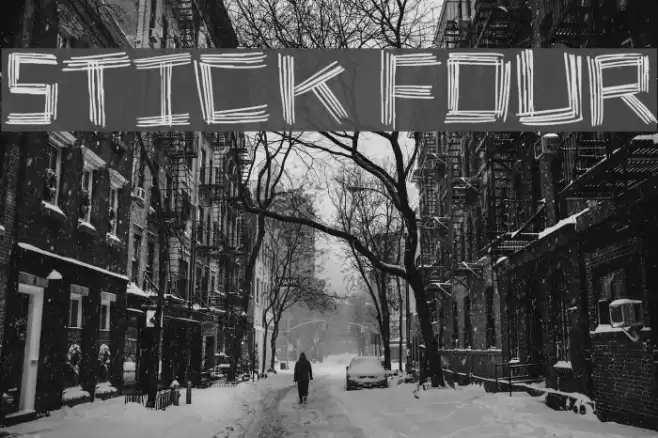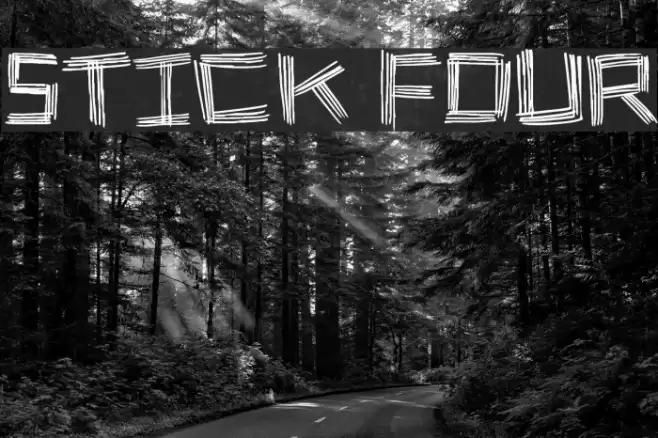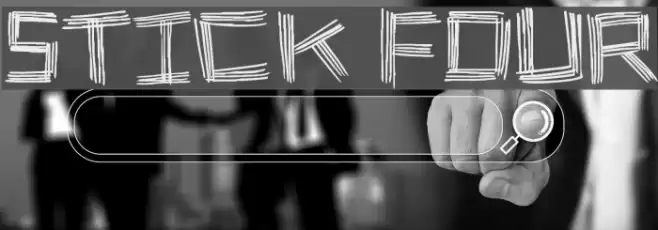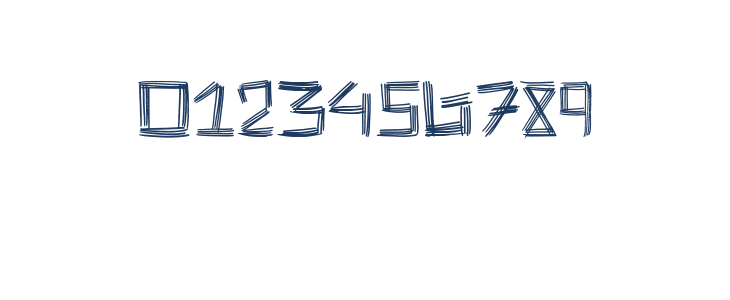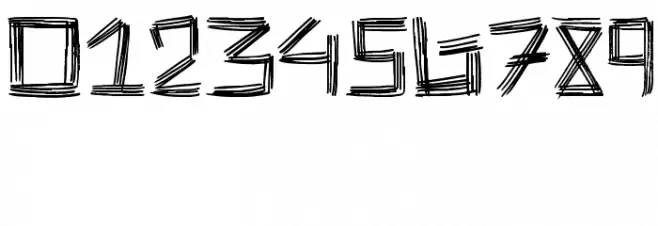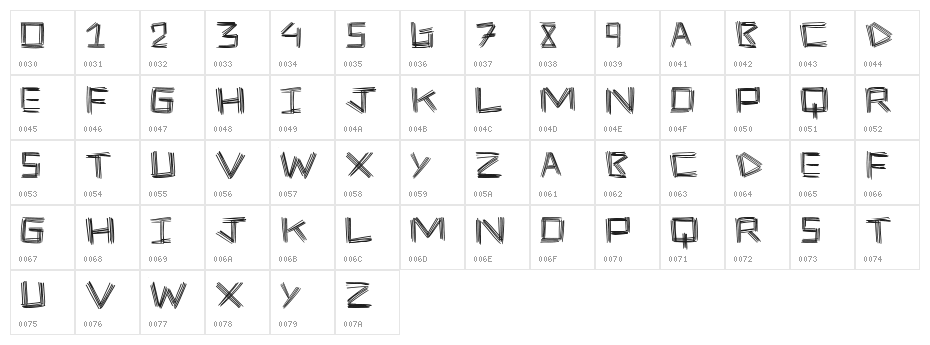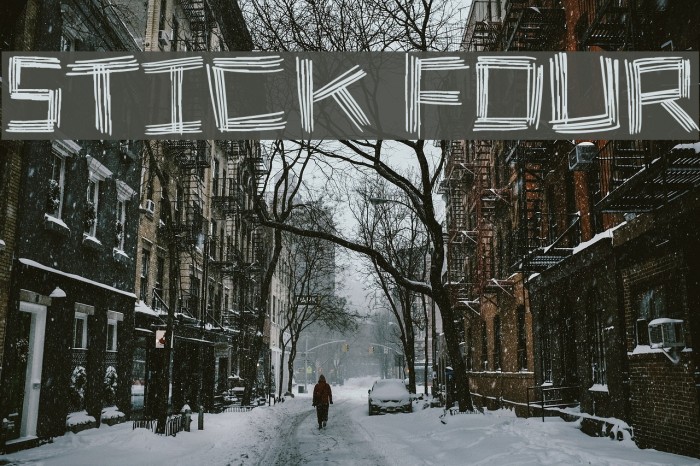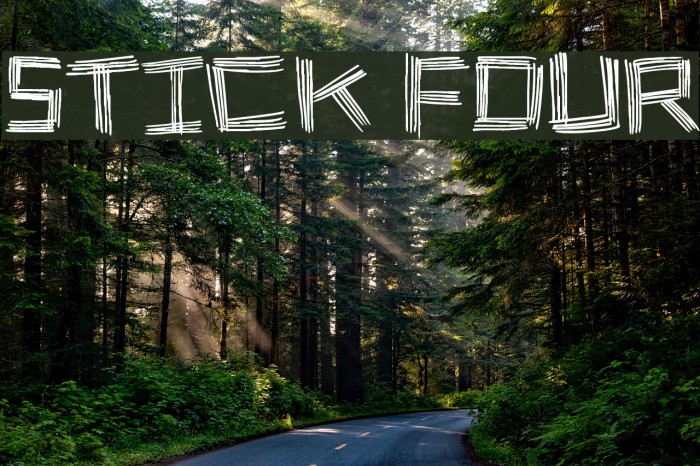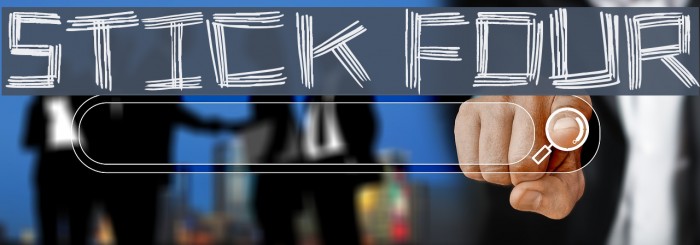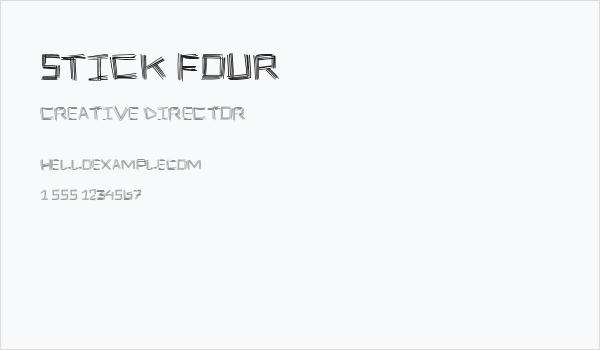
Stick Four Font
Stick Four Description
This font features a unique, hand-drawn style with a sketch-like appearance. Each character is composed of multiple overlapping lines, creating a textured and dynamic look. The irregularity in the strokes gives it a raw, artistic feel, reminiscent of quick sketches or graffiti. The uppercase and lowercase letters maintain a consistent style, with angular and geometric shapes that add to its edgy aesthetic. Numbers and special characters follow the same design principles, ensuring a cohesive look across all elements. This font's distinctive style makes it stand out, perfect for projects that require a bold and unconventional typeface.
A sketch-like, hand-drawn font with overlapping lines and a dynamic, edgy appearance from Uncategorized fonts.
- Proposed Projects: Ideal for album covers, street art-inspired designs, posters, and creative branding projects.